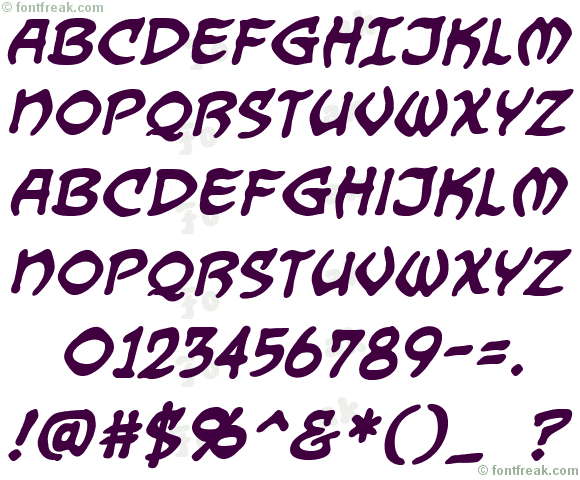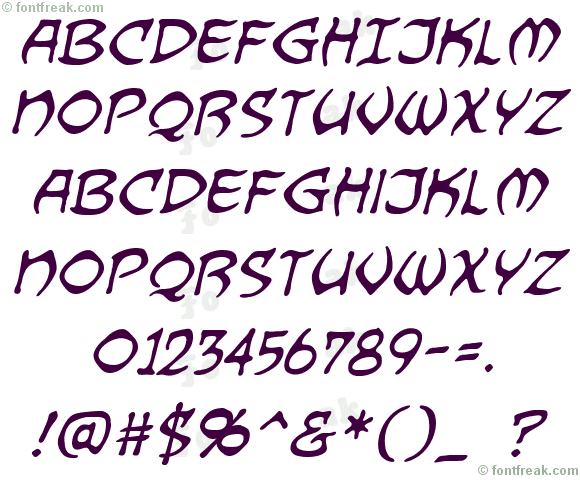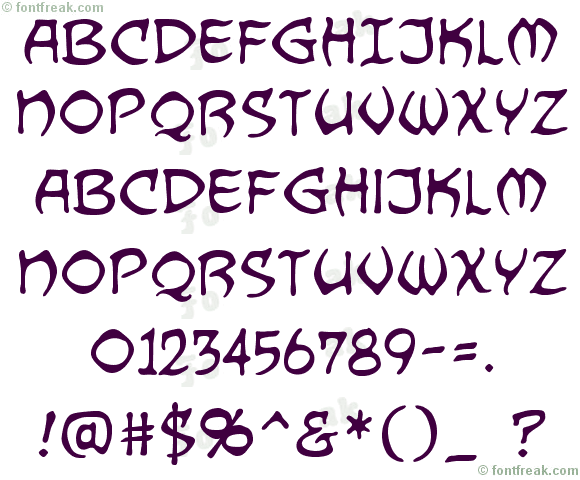
DragonbonesBB-Bold
DragonbonesBB-Italic
DragonbonesBB
Dragonbones by Blambot Fonts is a striking decorative font that embodies a unique and whimsical style, making it a perfect choice for various creative projects. This freeware font features an imaginative design with playful, jagged edges that evoke a sense of fantasy and adventure. The stroke weight varies throughout the characters, creating an engaging visual contrast that draws the eye. The spacing is thoughtfully arranged, allowing for readability while maintaining its distinctive character.
Best suited for creative endeavors such as movie posters, fantasy book covers, Halloween-themed invitations, and video game graphics, Dragonbones is versatile enough to elevate any project that calls for a touch of the extraordinary. Its bold, italicized forms lend themselves well to dynamic headings and attention-grabbing titles, making it a favorite among graphic designers and content creators looking to infuse their work with creativity and flair.
The target audience for this font includes graphic designers, small business owners, and anyone involved in creative content production who seeks to make a memorable impact. Whether you are crafting promotional materials or designing unique branding elements, the Dragonbones font can help convey a sense of fun and imagination.
What truly sets Dragonbones apart is its ability to capture a fantastical essence while remaining versatile for a range of applications. This font encourages creativity and invites users to explore their artistic instincts. With a Dragonbones font free download available, you can easily incorporate this enchanting typeface into your projects and let your imagination take flight. The playful nature and distinctive design of Dragonbones make it an excellent choice for anyone looking to add a unique twist to their typography.